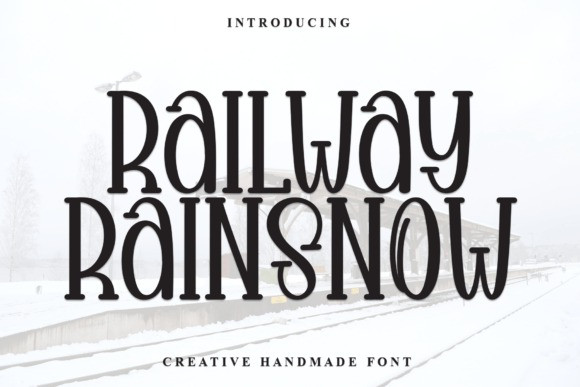
Railway Rainsnow Font
Railway Rainsnow Font a captivating and endearing display font, created with a keen attention to detail to inject a blissful ambiance into your designs. The font’s delightful bends and lively character make it the perfect choice for captivating wedding invitations, genuine greeting cards, or any design endeavor yearning for a hint of whimsical charm. Let your imagination run free and add a delightful spin to your creations with this irresistibly fetching font.